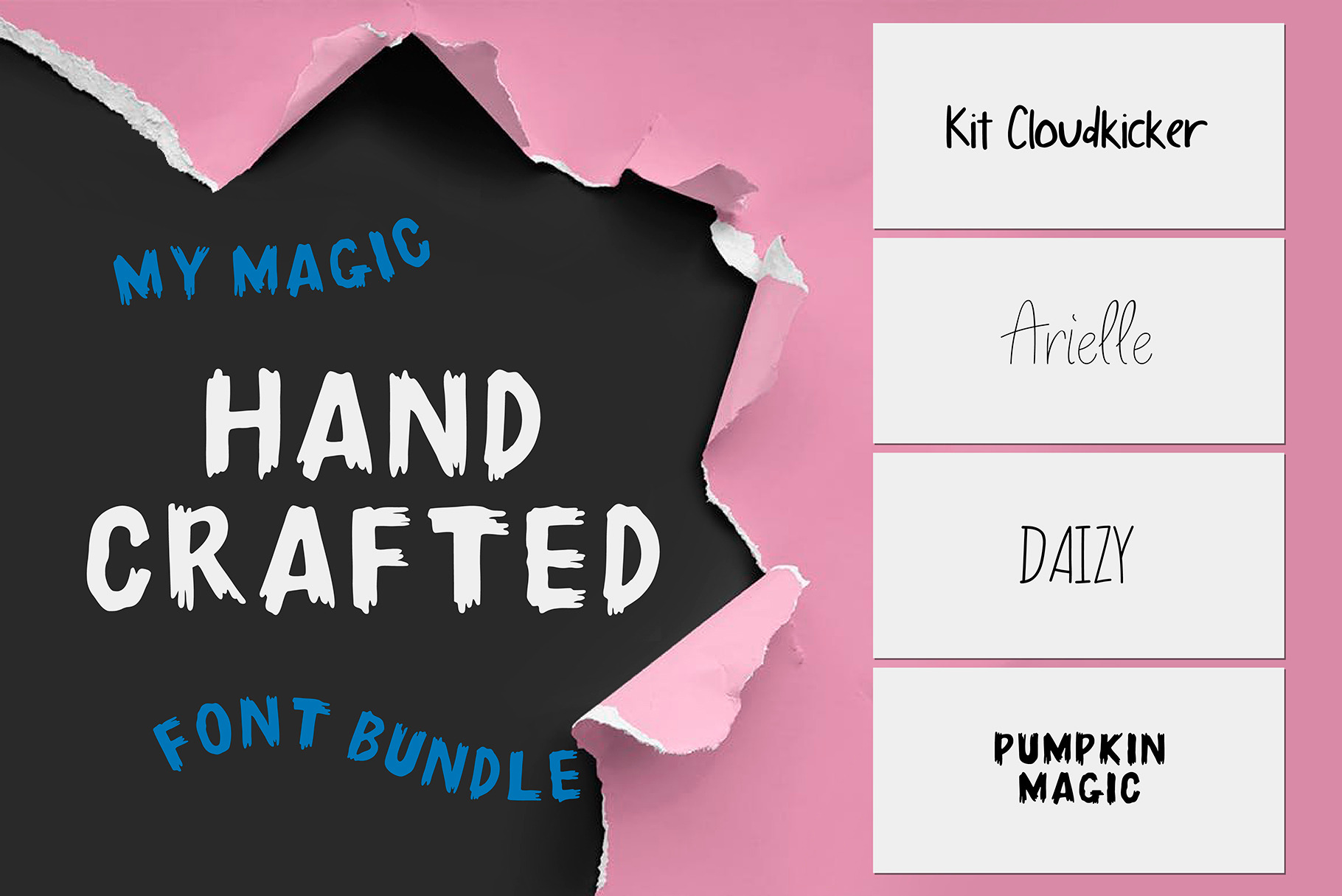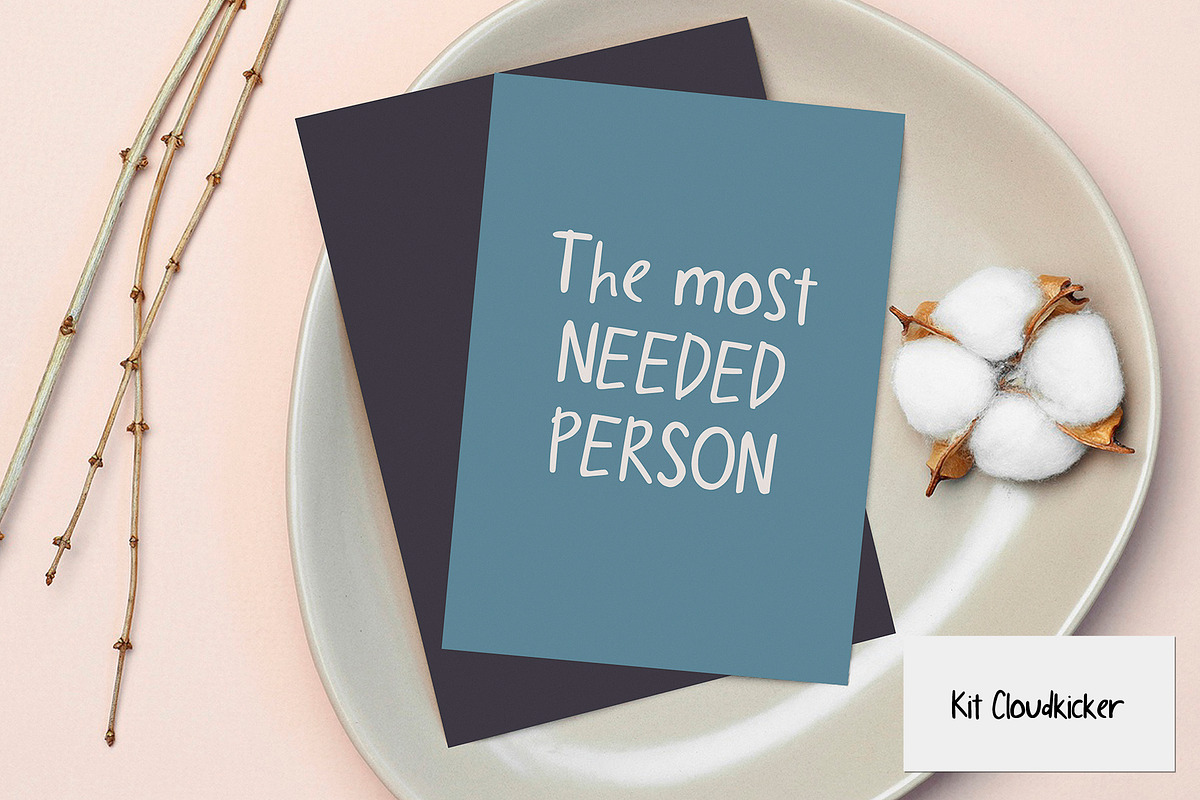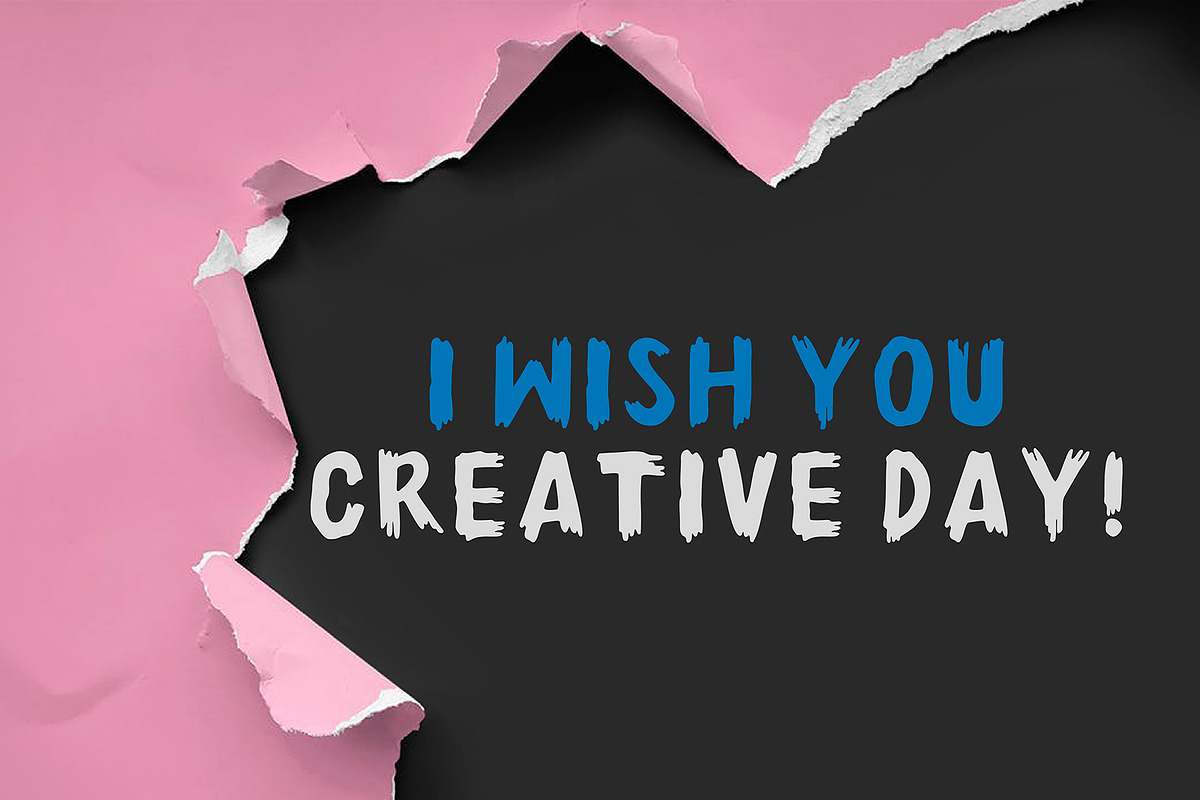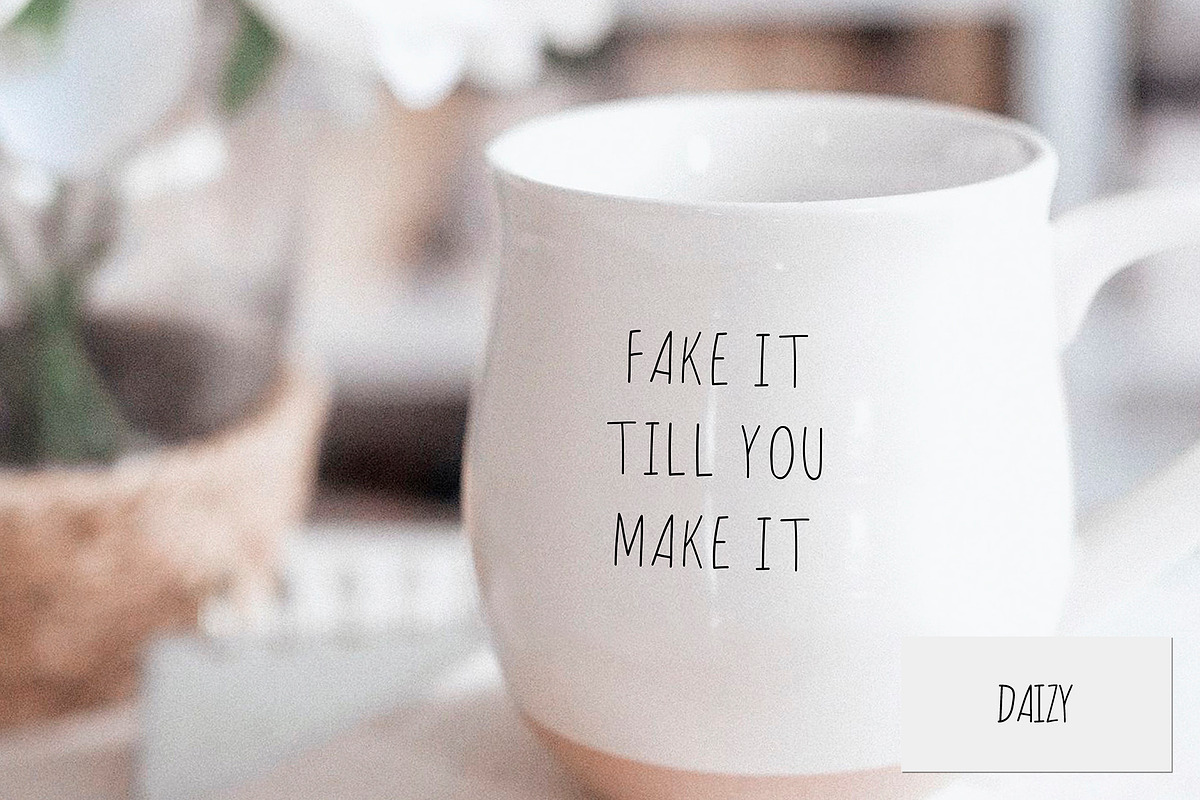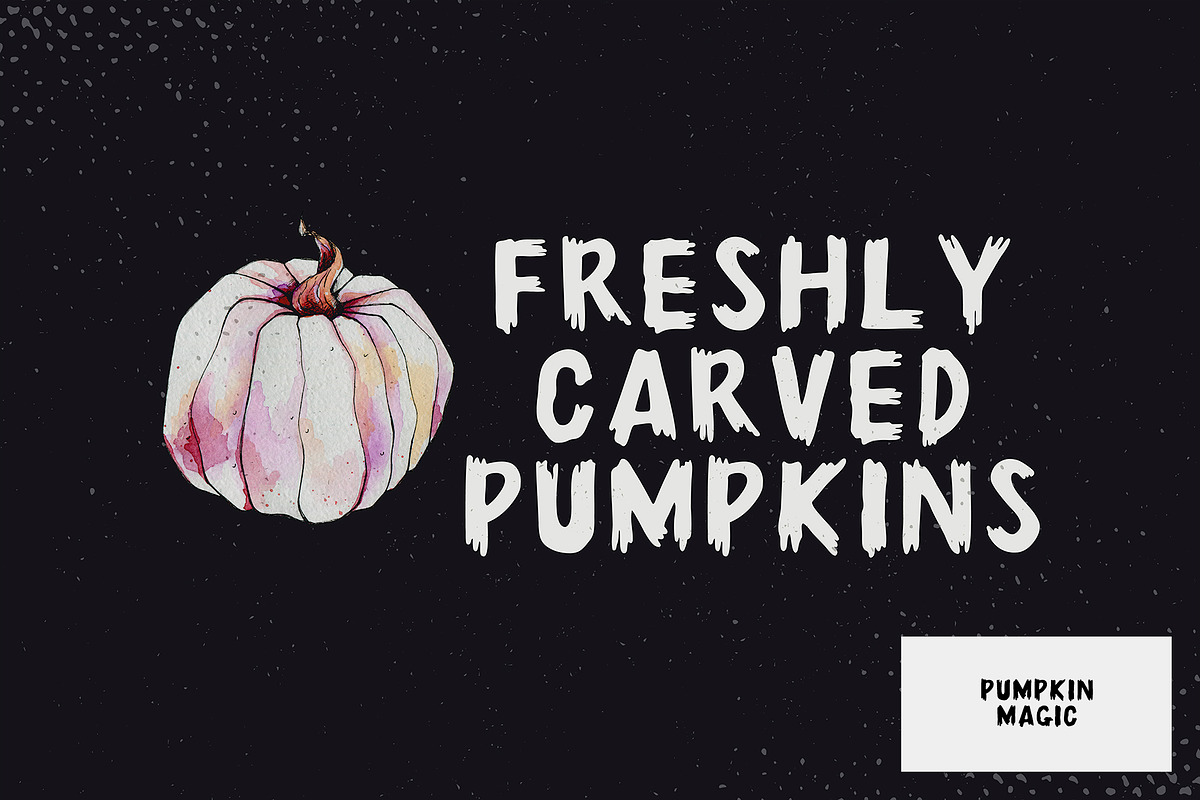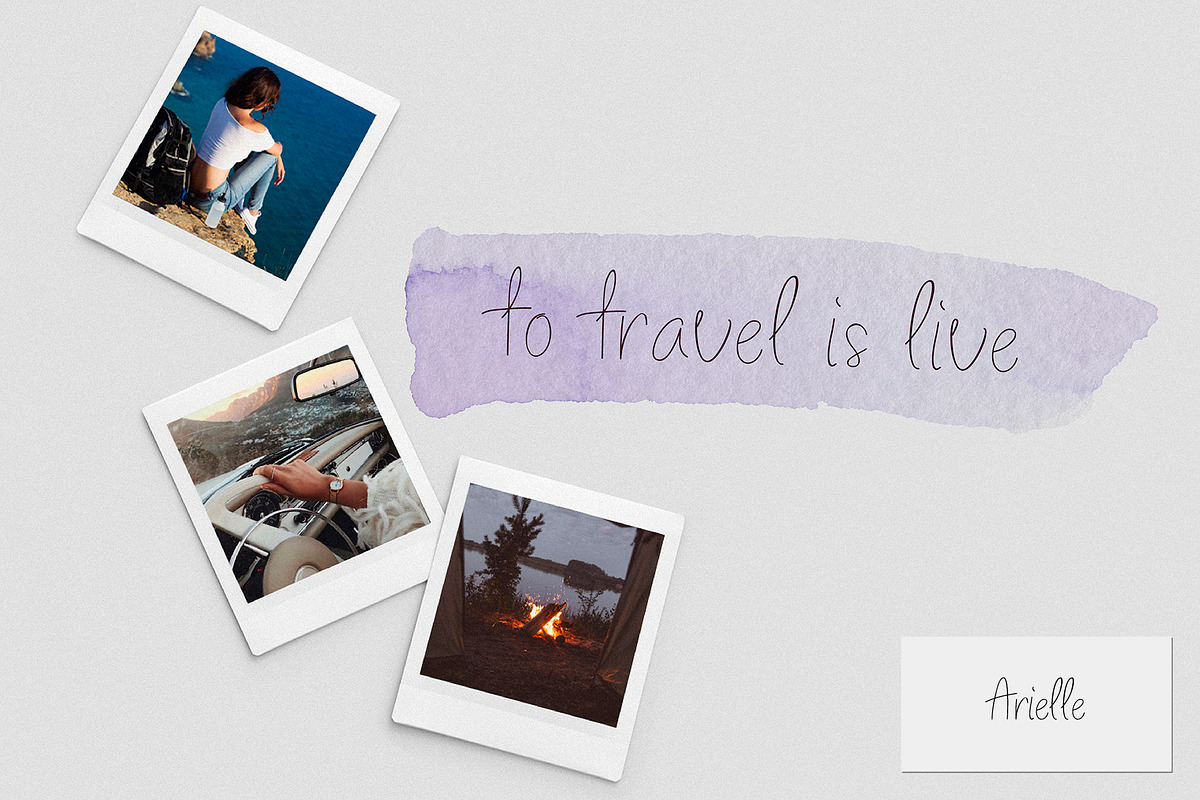
My Magic Hand Crafted Font Bundle
I have prepared for you a set of my magic handmade fonts! A set of four handwritten fonts for the price of one, designed specifically for mixing and matching with each other and available exclusively in this set. Add an individual approach to the design of your products, logos, social media posts, handwritten quotes and much more!!
- A-Z; a-z character set;
- numbers and punctuation marks, symbols.
A font containing uppercase and lowercase letters, numbers, and a wide range of punctuation marks.